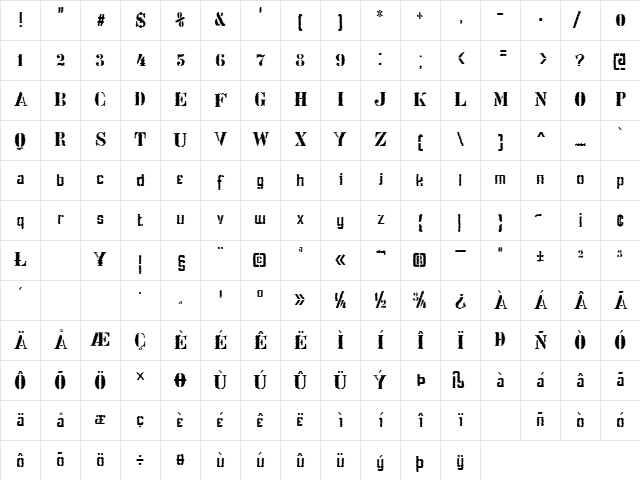
Stenci lIntellecta Trash Free Regular
Foundry: Paulo W
Design Context for Stenci lIntellecta Trash Free
Stenci lIntellecta Trash Free is a composed and adaptable typeface that performs quietly and consistently across a wide range of design contexts.
Who designed the Stenci lIntellecta Trash Free Regular font?
This font was published by Paulo W. Check the technical specs section for copyright and designer details.